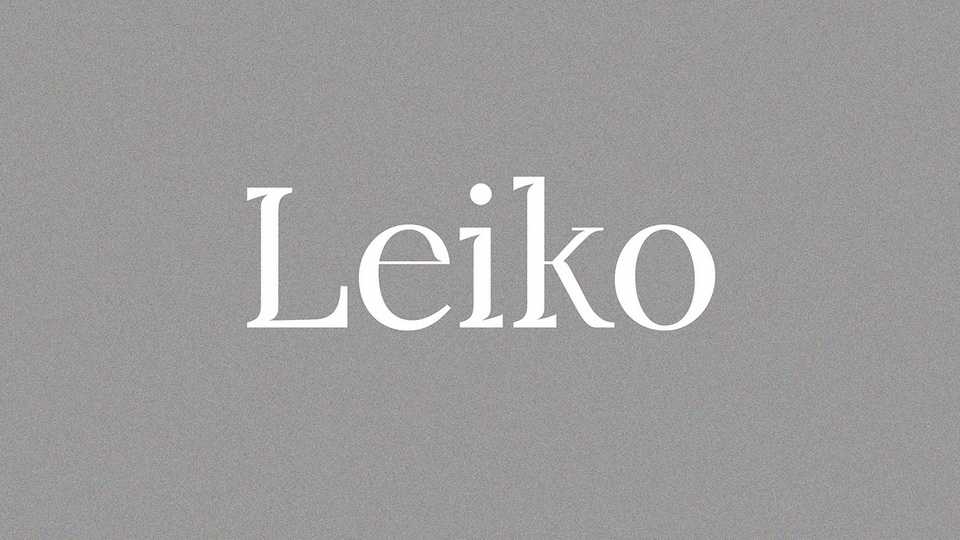
Download Leiko font, a versatile serif typeface with moderate contrast, soft curves and sharp serifs. Leiko is well-suited to classy branding and editorial designs.
Designer: Aniko Veres